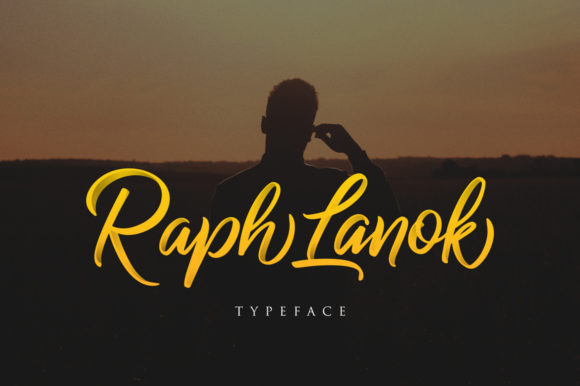
Raph Lanok Font: Elevate Your Design with Elegance and Sophistication
The world of typography is vast and diverse, with countless fonts to choose from, each with its unique character and style. Among these, the Raph Lanok font stands out for its incredibly elegant and smooth style, perfect for adding a personal touch to any design project. In this article, we’ll delve into the details of the Raph Lanok font, exploring its features, benefits, and uses, and why it’s becoming a favorite among designers and typography enthusiasts alike.
What is Raph Lanok Font?
Raph Lanok is a modern script font that exudes elegance and sophistication. Its smooth, flowing lines and intricate details make it an ideal choice for designs that require a touch of luxury and refinement. The font is designed to be versatile, suitable for a wide range of applications, from branding and advertising to packaging and digital media.
The Elegance and Style of Raph Lanok
Raph Lanok’s incredibly elegant and smooth style is what sets it apart from other fonts. Its curves are carefully crafted to create a sense of fluidity and movement, making it perfect for designs that require a sense of dynamism and energy. The font’s smooth lines and subtle transitions between letters create a seamless visual flow, making it a joy to read and behold.
One of the key features of Raph Lanok is its attention to detail. The font’s designer has meticulously refined every aspect of the font, from the shape of the letters to the spacing between them, to create a truly exceptional typographic experience. The result is a font that is not only beautiful but also highly legible, making it suitable for use in a wide range of contexts.
Uses and Applications of Raph Lanok Font
Raph Lanok’s versatility makes it an excellent choice for a variety of design projects. Here are some of the ways you can use this elegant font:
- Branding and Logo Design: Raph Lanok’s unique style makes it an excellent choice for branding and logo design. Its elegance and sophistication can help create a lasting impression on your target audience.
- Advertising and Marketing: The font’s smooth lines and flowing curves make it perfect for use in advertising and marketing materials, such as brochures, flyers, and posters.
- Packaging Design: Raph Lanok’s luxurious feel makes it an excellent choice for packaging design, particularly for high-end products.
- Digital Media: The font’s legibility and elegance make it suitable for use in digital media, such as websites, social media graphics, and email marketing campaigns.
Benefits of Using Raph Lanok Font
There are several benefits to using Raph Lanok font in your design projects. Here are some of the advantages of choosing this elegant font:
- Unique Style: Raph Lanok’s unique style sets it apart from other fonts, making it an excellent choice for designers looking to create something distinctive.
- Elegance and Sophistication: The font’s elegance and sophistication make it perfect for designs that require a touch of luxury and refinement.
- Versatility: Raph Lanok’s versatility makes it suitable for a wide range of design projects, from branding and advertising to packaging and digital media.
- Legibility: The font’s attention to detail and smooth lines make it highly legible, even at small sizes.
Tips for Using Raph Lanok Font
To get the most out of Raph Lanok font, here are some tips to keep in mind:
- Use it Sparingly: Raph Lanok’s elegance and sophistication make it perfect for use in headlines and titles. Use it sparingly to create a lasting impression.
- Pair it with Other Fonts: Experiment with pairing Raph Lanok with other fonts to create a unique visual identity.
- Adjust the Size and Color: Adjust the size and color of Raph Lanok to suit your design needs.
- Use it for Body Text: While Raph Lanok is perfect for headlines and titles, it can also be used for body text. However, use it at a larger size to ensure legibility.
Raph Lanok font is a modern script font that exudes elegance and sophistication. Its smooth, flowing lines and intricate details make it an ideal choice for designs that require a touch of luxury and refinement. With its versatility, legibility, and unique style, Raph Lanok is becoming a favorite among designers and typography enthusiasts alike. Whether you’re looking to create a brand identity, design a logo, or simply add a personal touch to your design project, Raph Lanok font is an excellent choice.
Final Thoughts
In conclusion, Raph Lanok font is a truly exceptional typographic experience. Its elegance, sophistication, and versatility make it an excellent choice for a wide range of design projects. With its attention to detail and smooth lines, Raph Lanok is perfect for designers looking to create something distinctive and luxurious. So why not give Raph Lanok a try? With its incredible style and versatility, it’s sure to elevate your design to the next level.